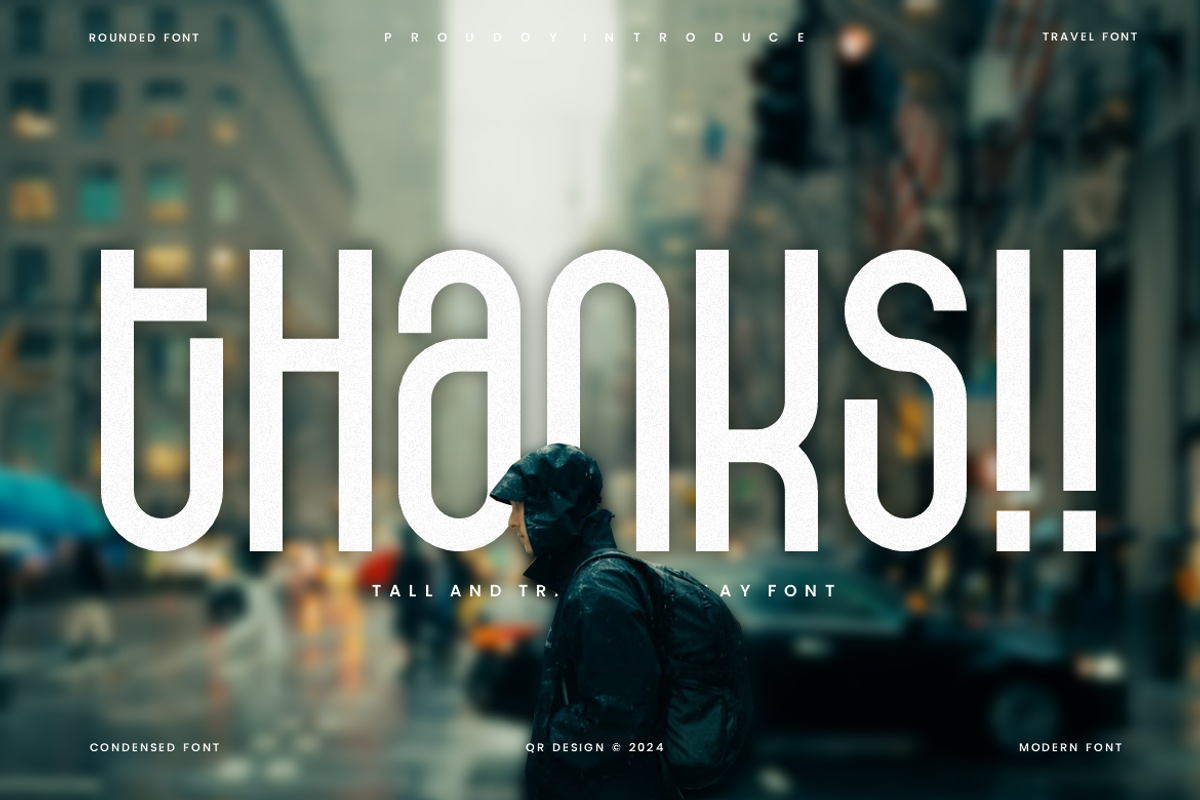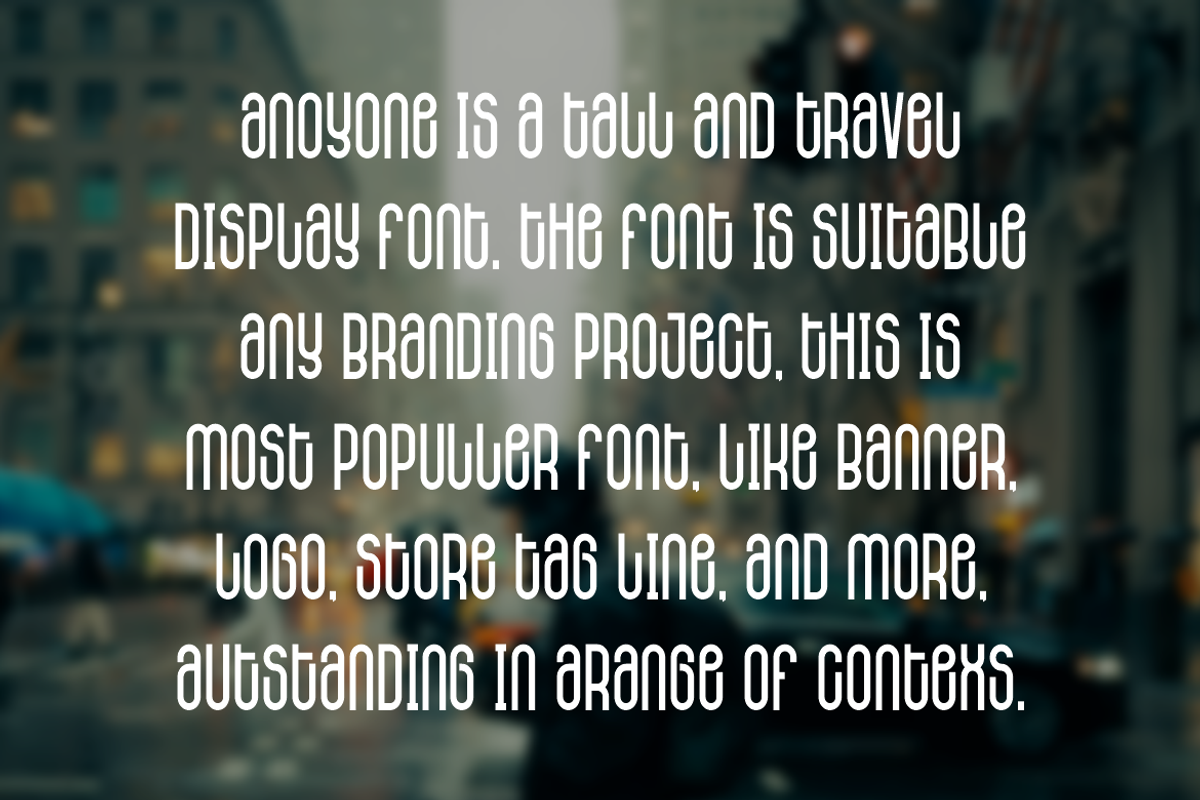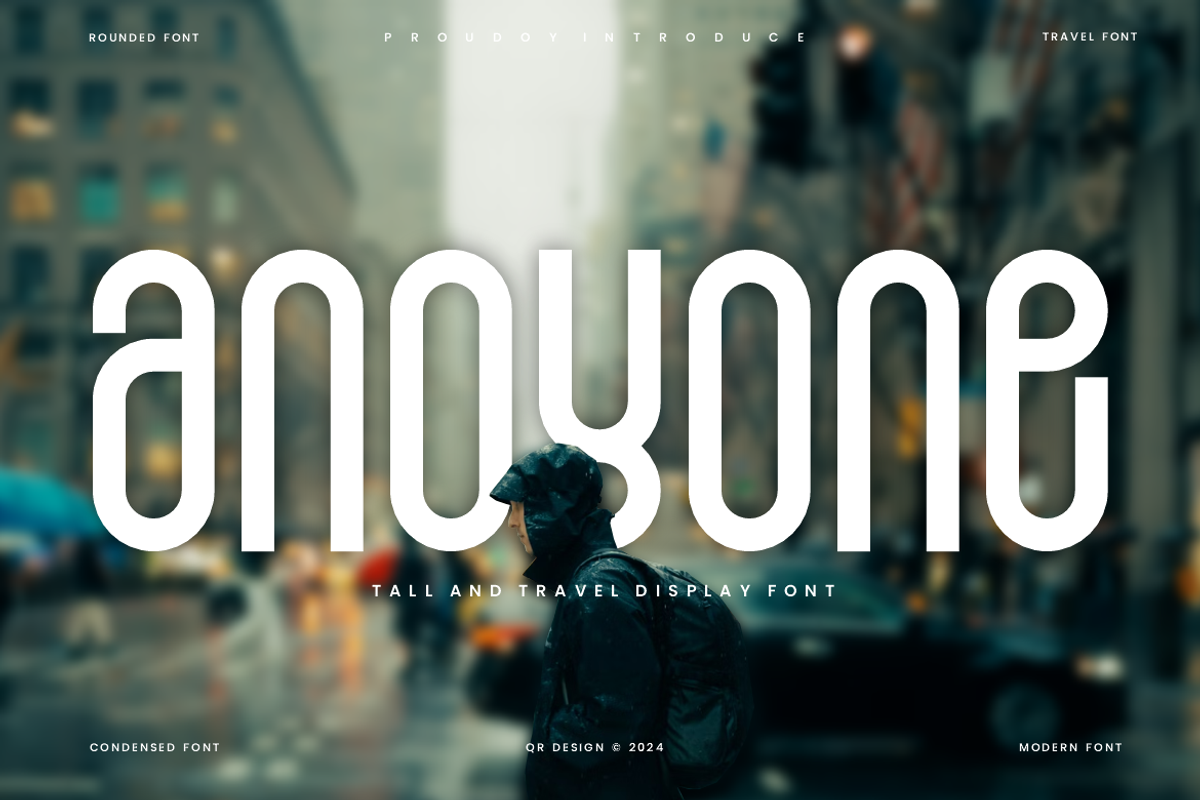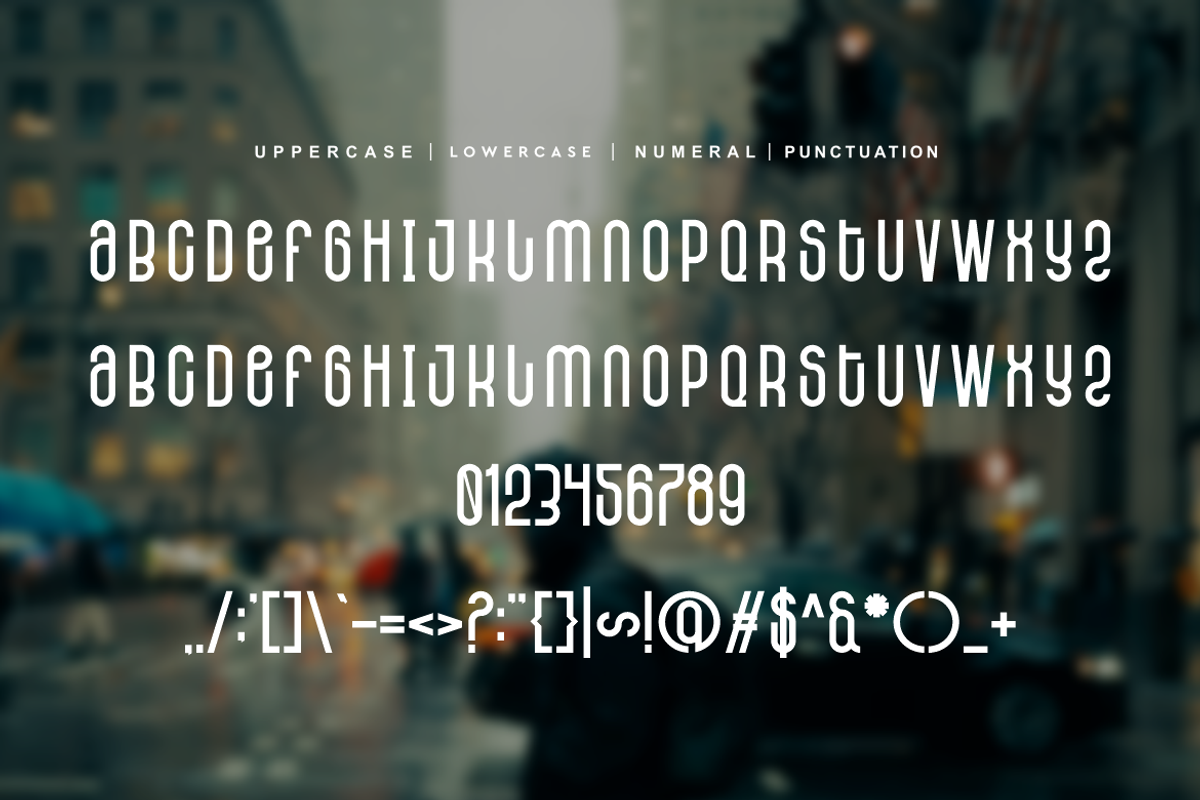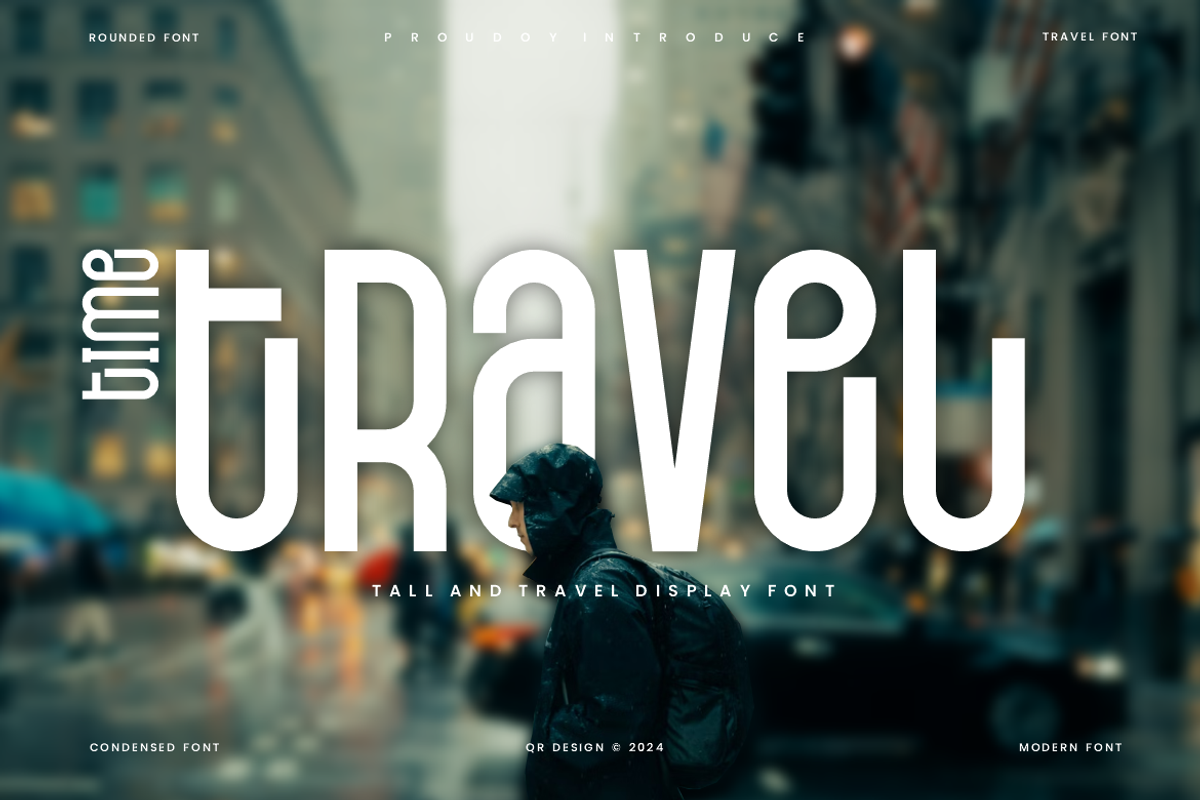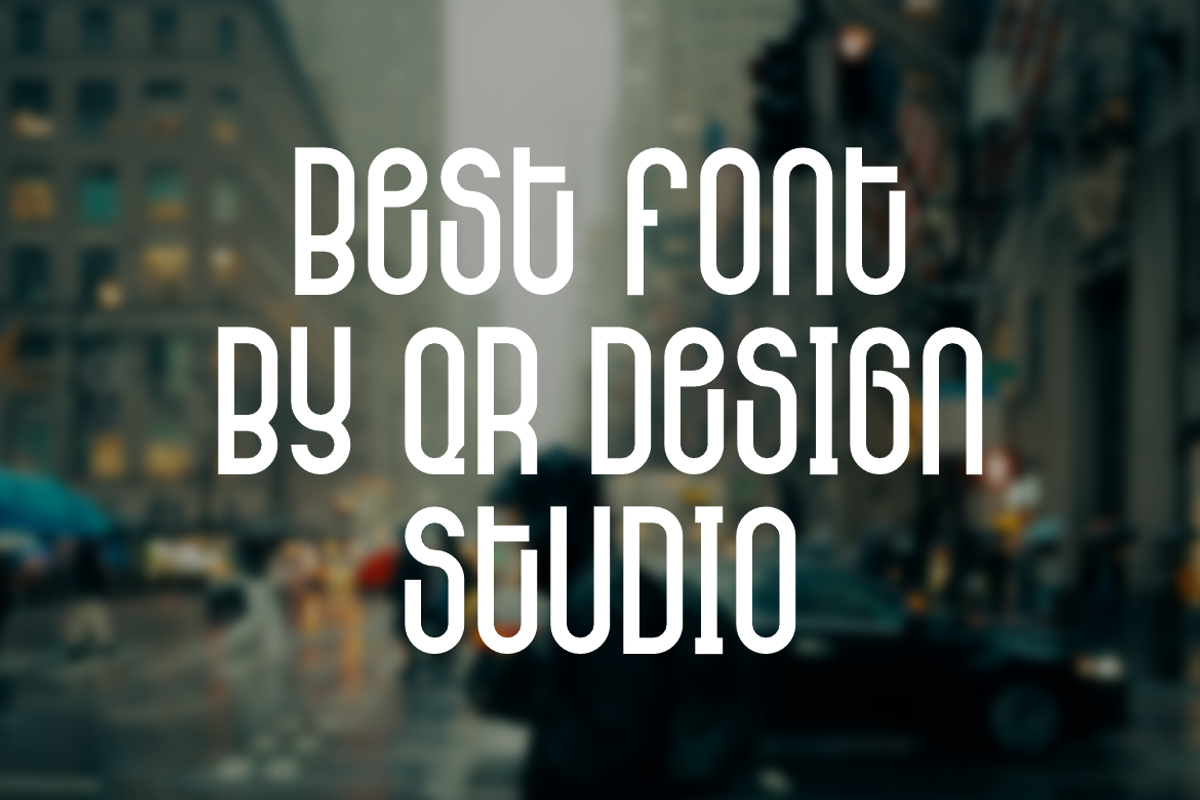
Anoyone - Tall & Travel Display Font
Anoyone - Tall & Travel Display Font is a bold and authentic display font. The font is suitable for any branding project like poster, logo, sport, and many more. Outstanding in a wide range of contexts.